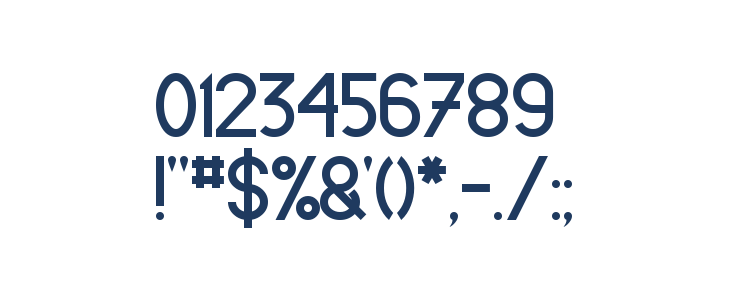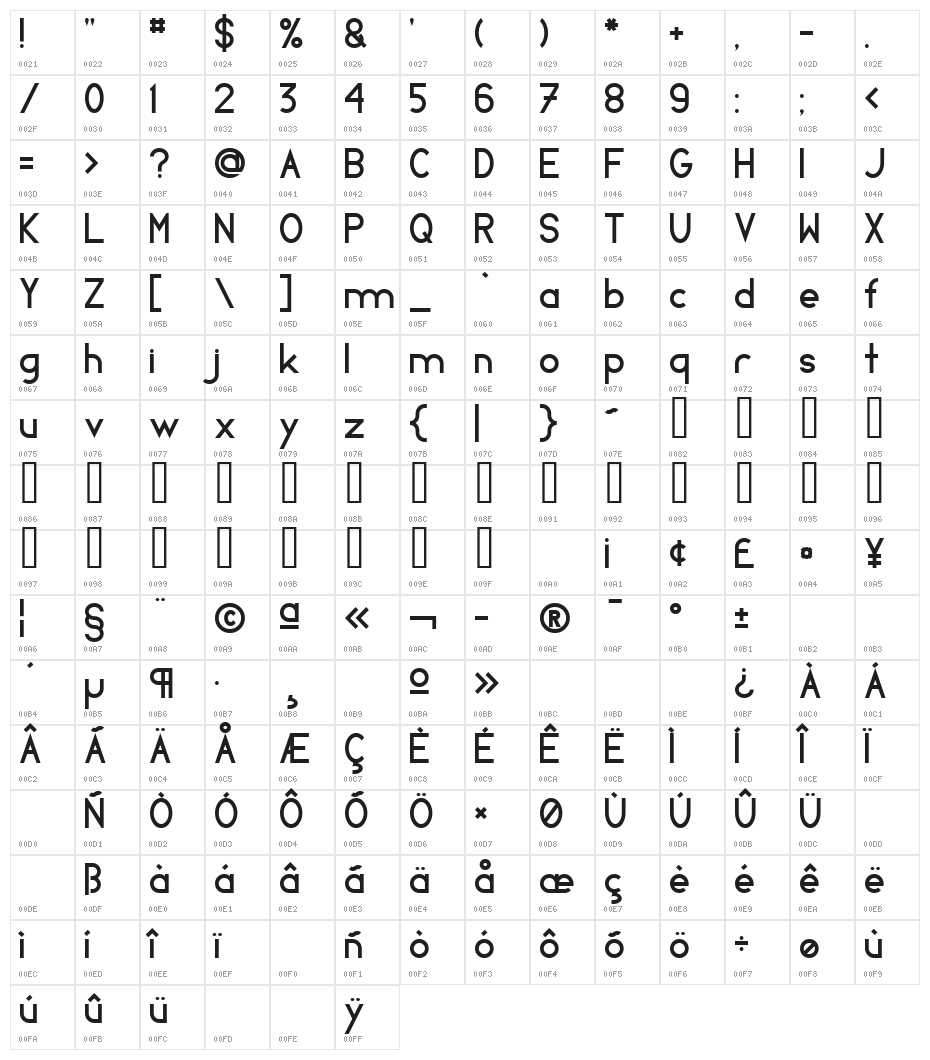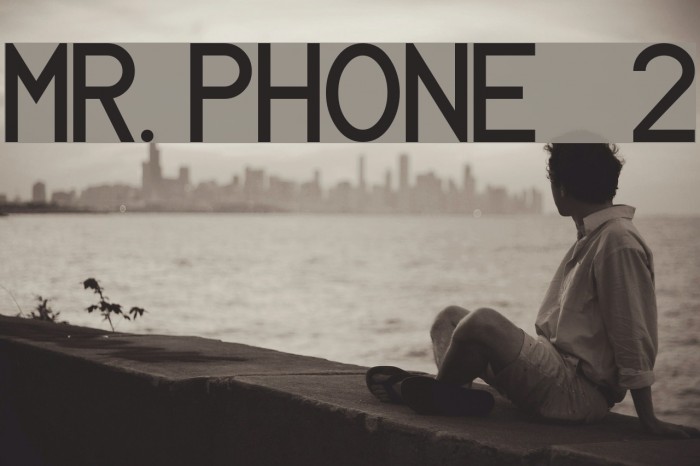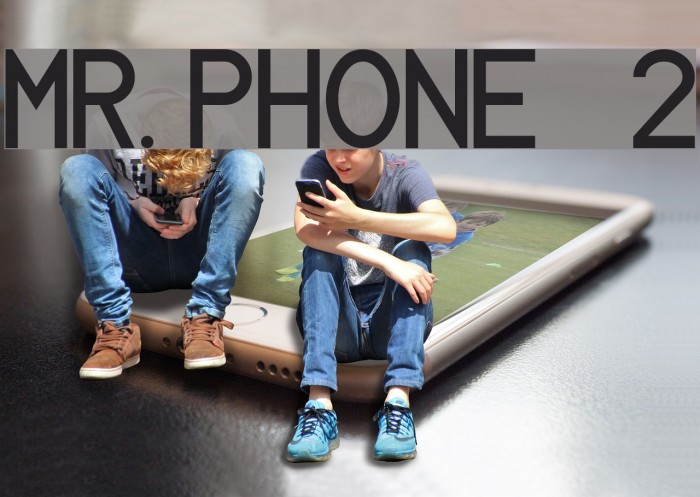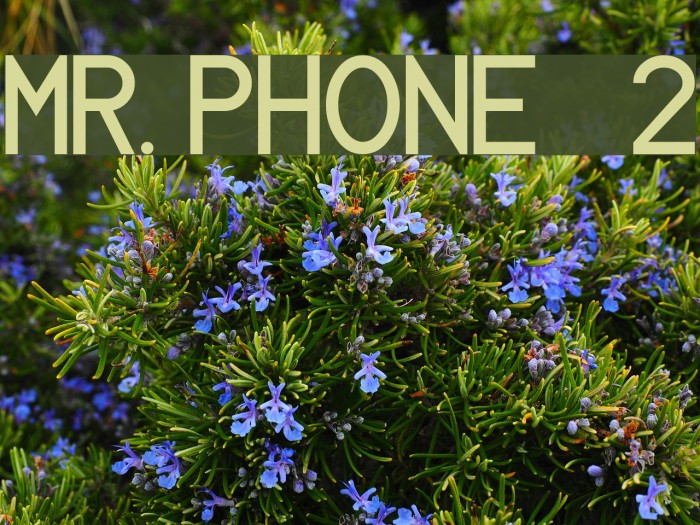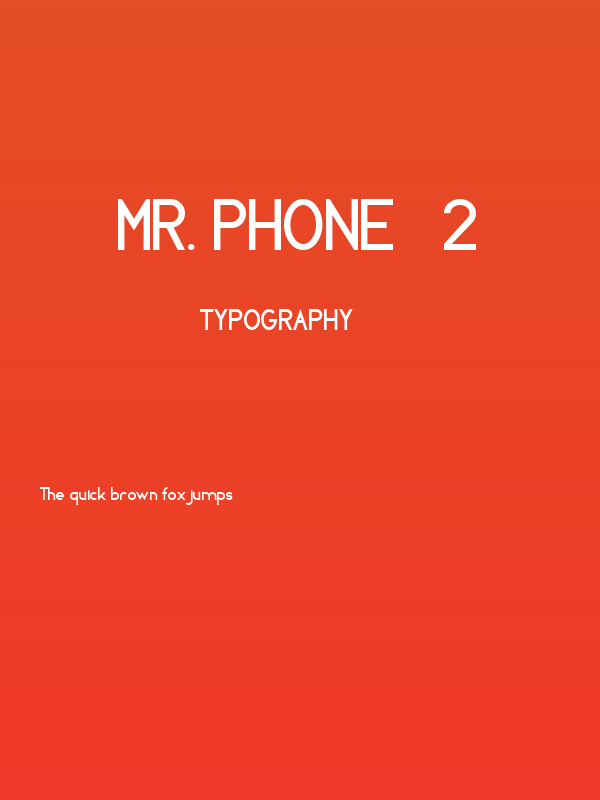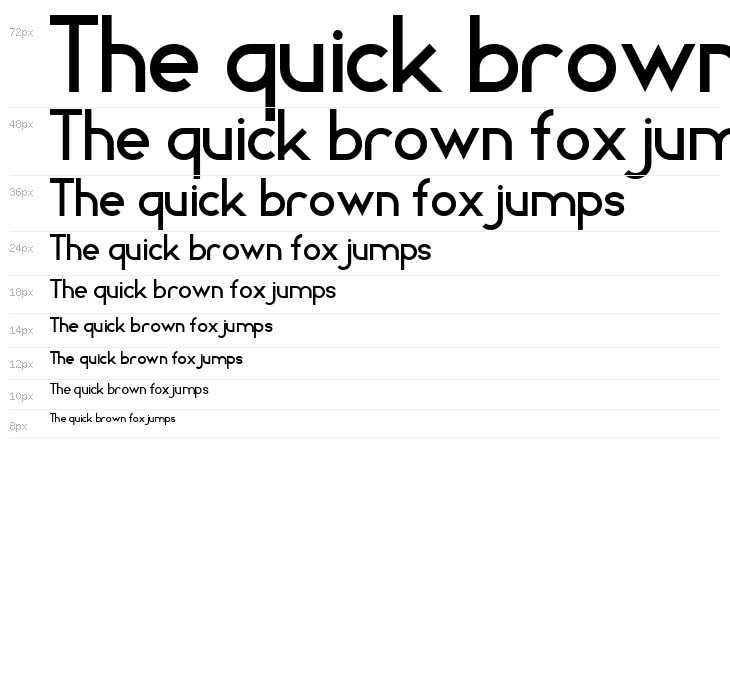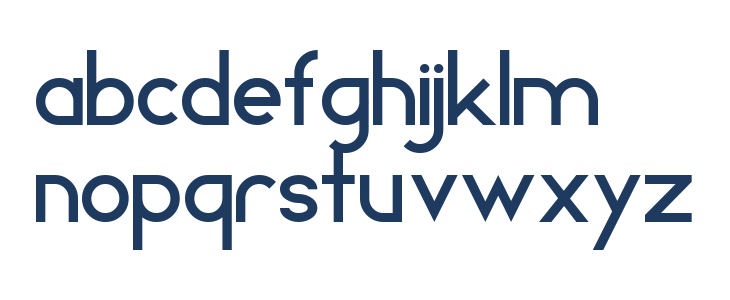
MR. PHONE 2 Font
MR. PHONE 2 Description
This font is a modern sans-serif typeface characterized by its clean and geometric design. The letters are uniform in width, with a consistent stroke weight that gives it a balanced and harmonious appearance. The uppercase letters are bold and impactful, while the lowercase letters maintain a smooth and rounded structure. The numerals are clear and easily distinguishable, making them suitable for various applications. Special characters are well-integrated, maintaining the overall aesthetic of the font. The design is versatile, making it suitable for both digital and print media.